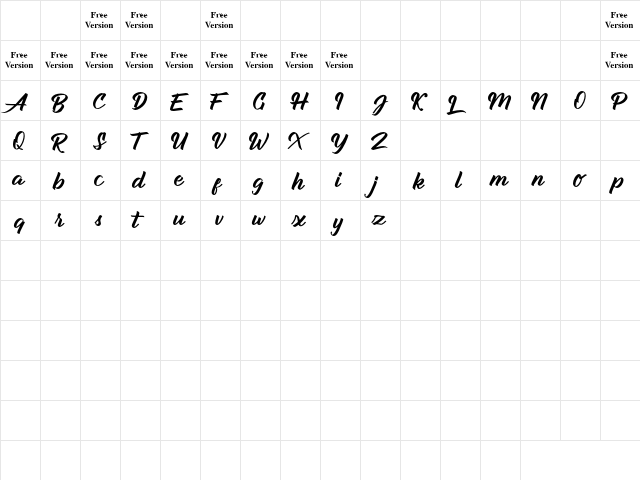
Aldhyaksa Personal Use Regular
| Designer | Fuad Hasan |
Design Context for Aldhyaksa Personal Use Typeface
Aldhyaksa Personal Use is a composed and adaptable typeface that performs quietly and consistently across a wide range of design contexts.